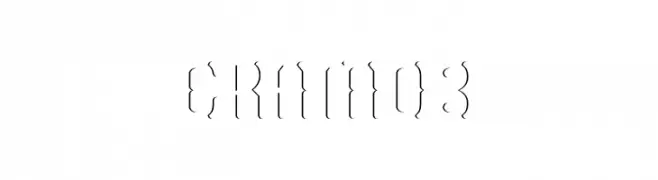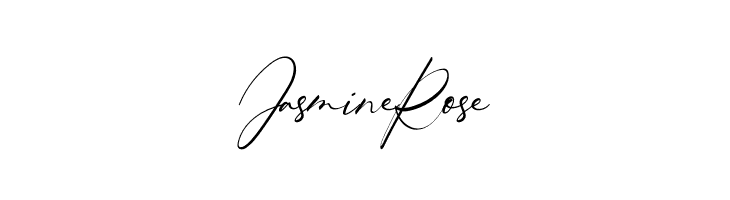
An elegant, fluid script font with sweeping cursive strokes.
A casual, handwritten font with smooth, flowing strokes.
A playful, handwritten font with rounded, consistent strokes and a casual feel.
A bold, expressive handwritten font with a brush-like texture.
A modern, sleek font with clean lines and a minimalist aesthetic.
A sleek, modern font with clean lines and subtle contrast, perfect for contemporary designs.
A bold, high-contrast serif font with dramatic strokes and sharp serifs.
A modern, playful font with tall, narrow letterforms and a handwritten feel.
An elegant script font with fluid, cursive strokes and decorative swashes.
A modern, elegant font with high contrast and slender letterforms.